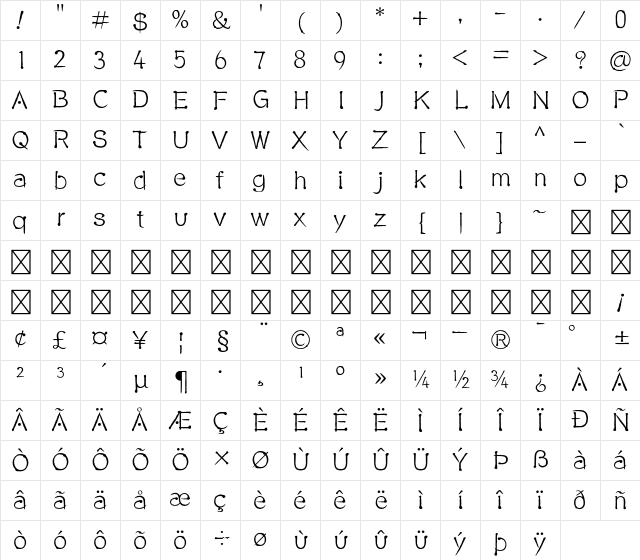
A P-OTF Hasefude Std R
Designer: Shinsaku Hasegawa
Design Context for A P-OTF Hasefude Std
A P-OTF Hasefude Std is a composed and adaptable typeface that performs quietly and consistently across a wide range of design contexts.
Pro Tip: Use A P-OTF Hasefude Std in both headline and body roles to test its range before committing to a single application.